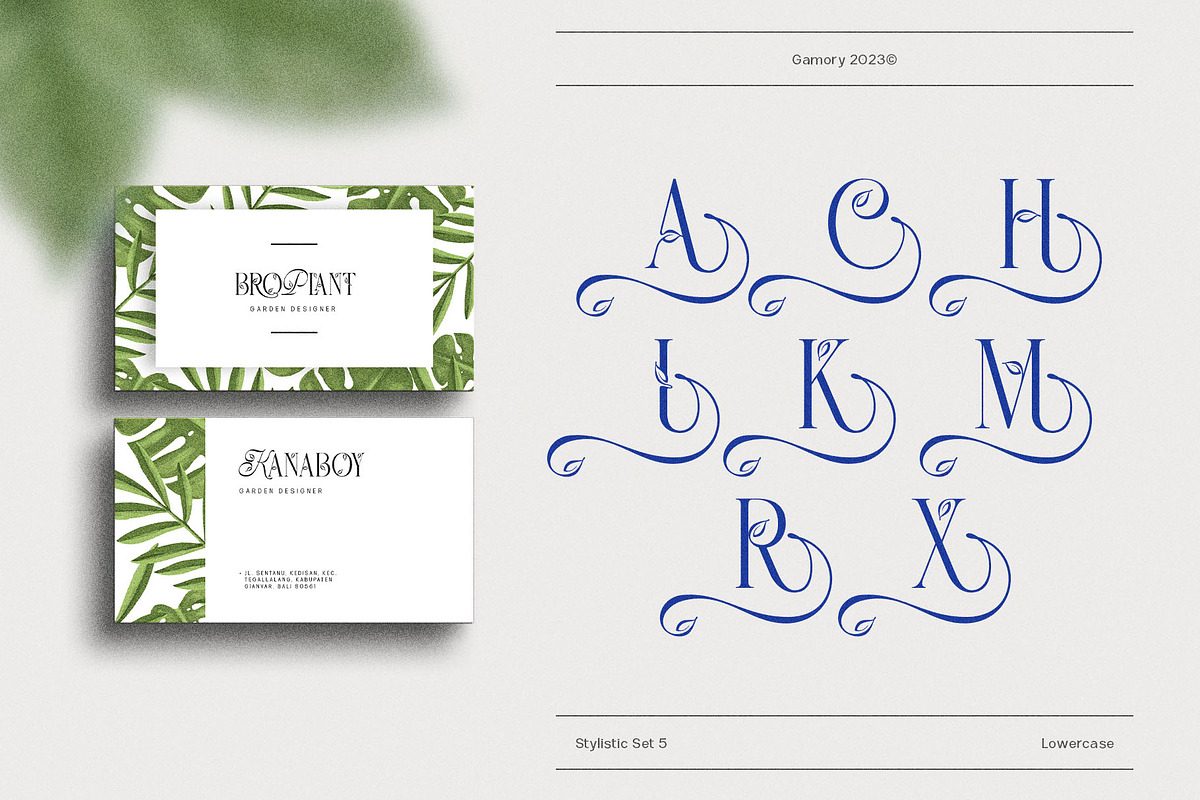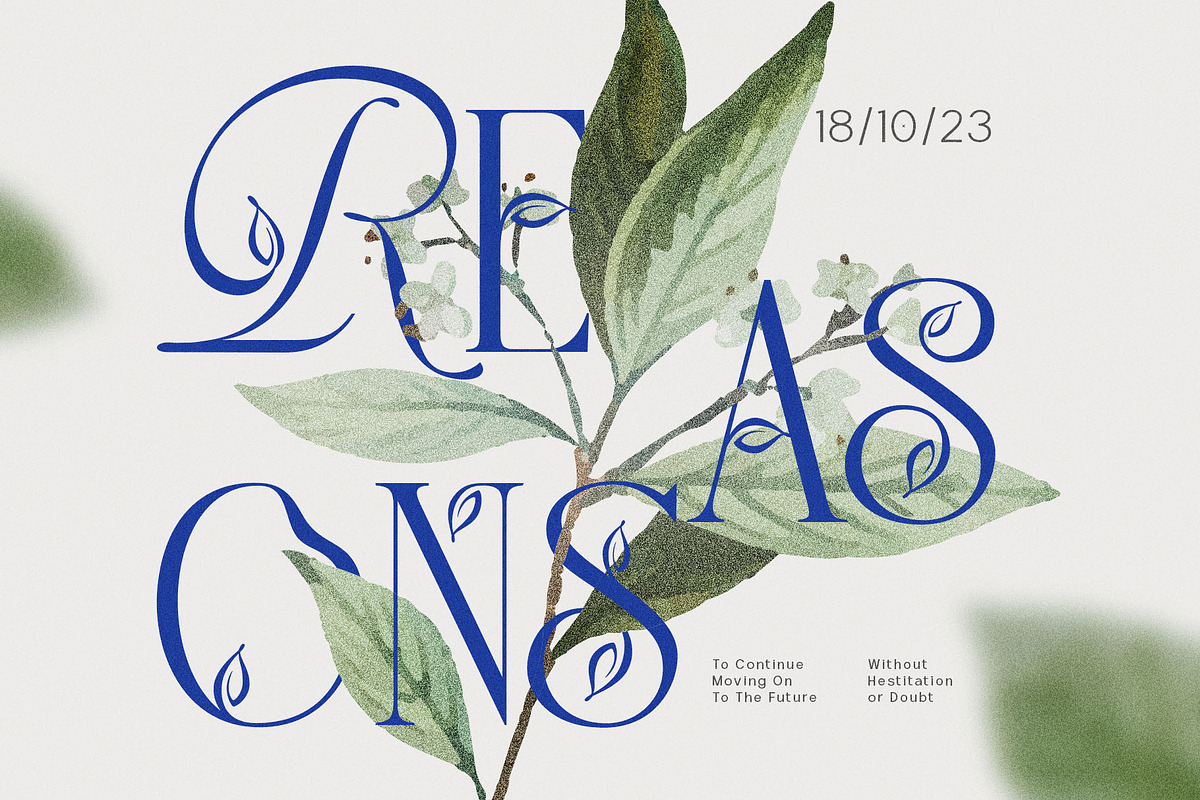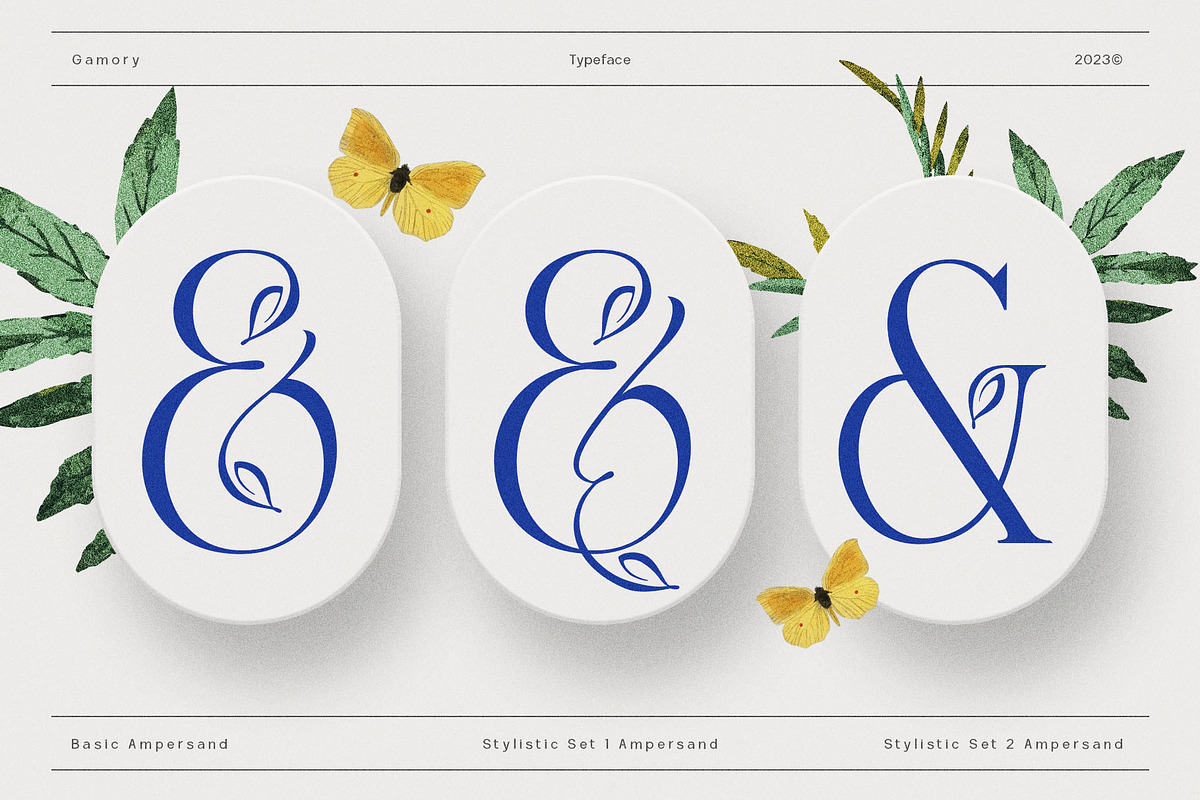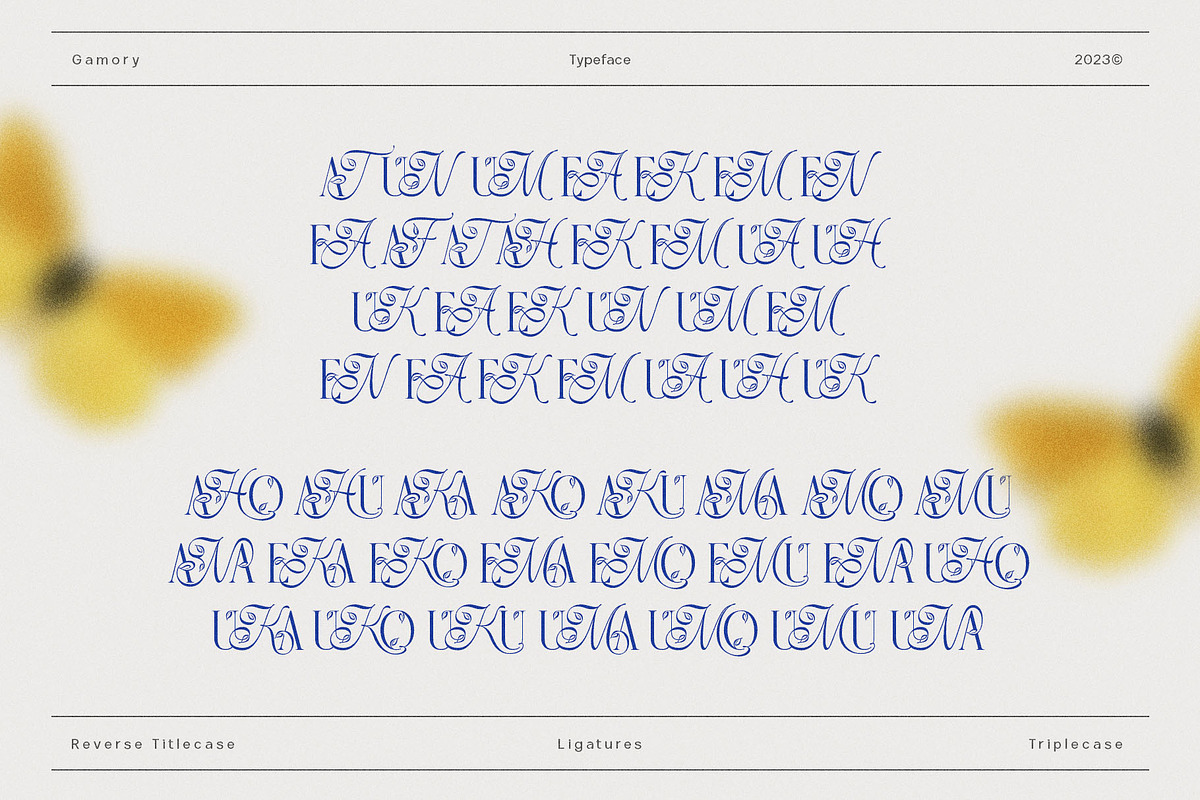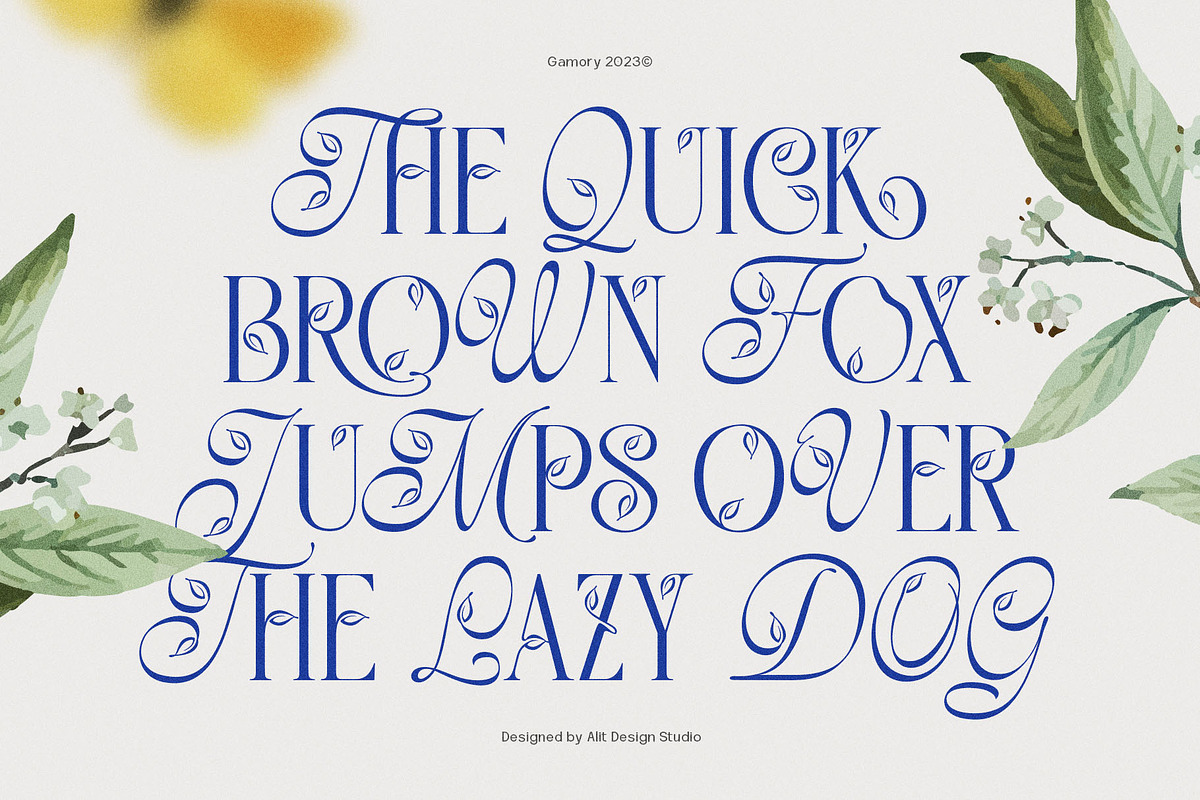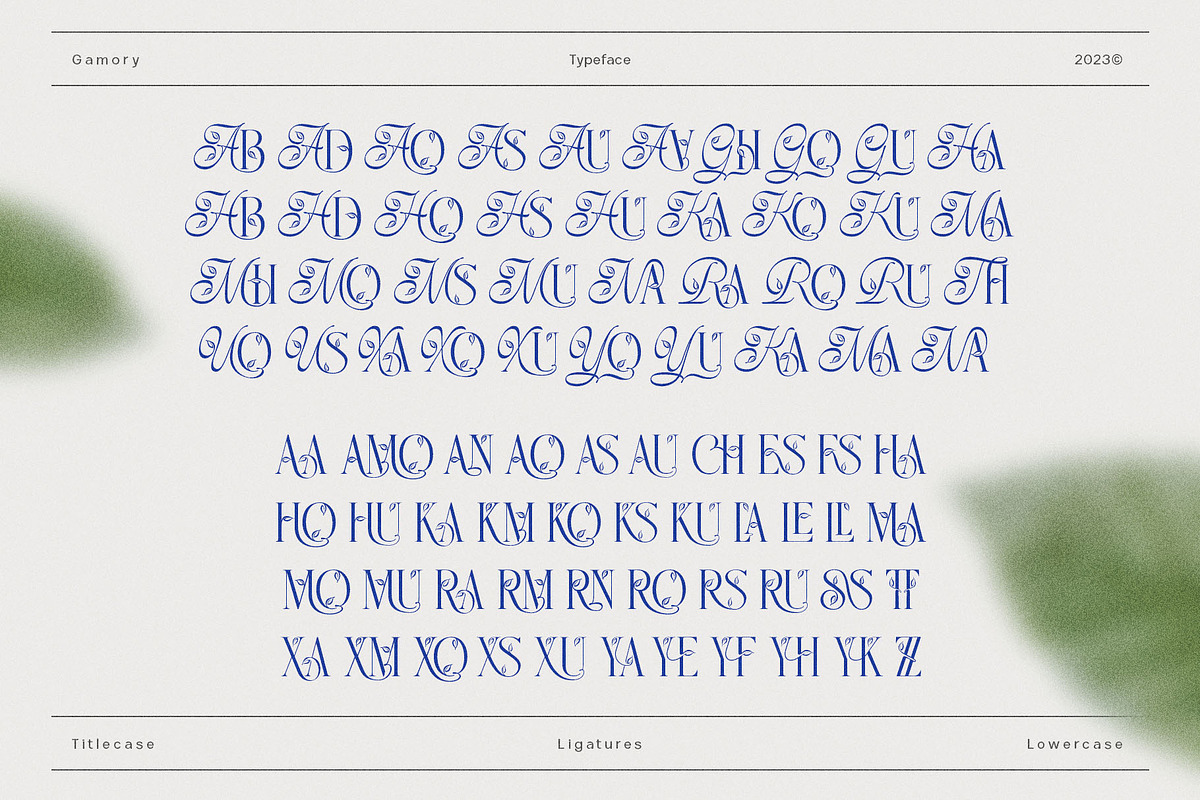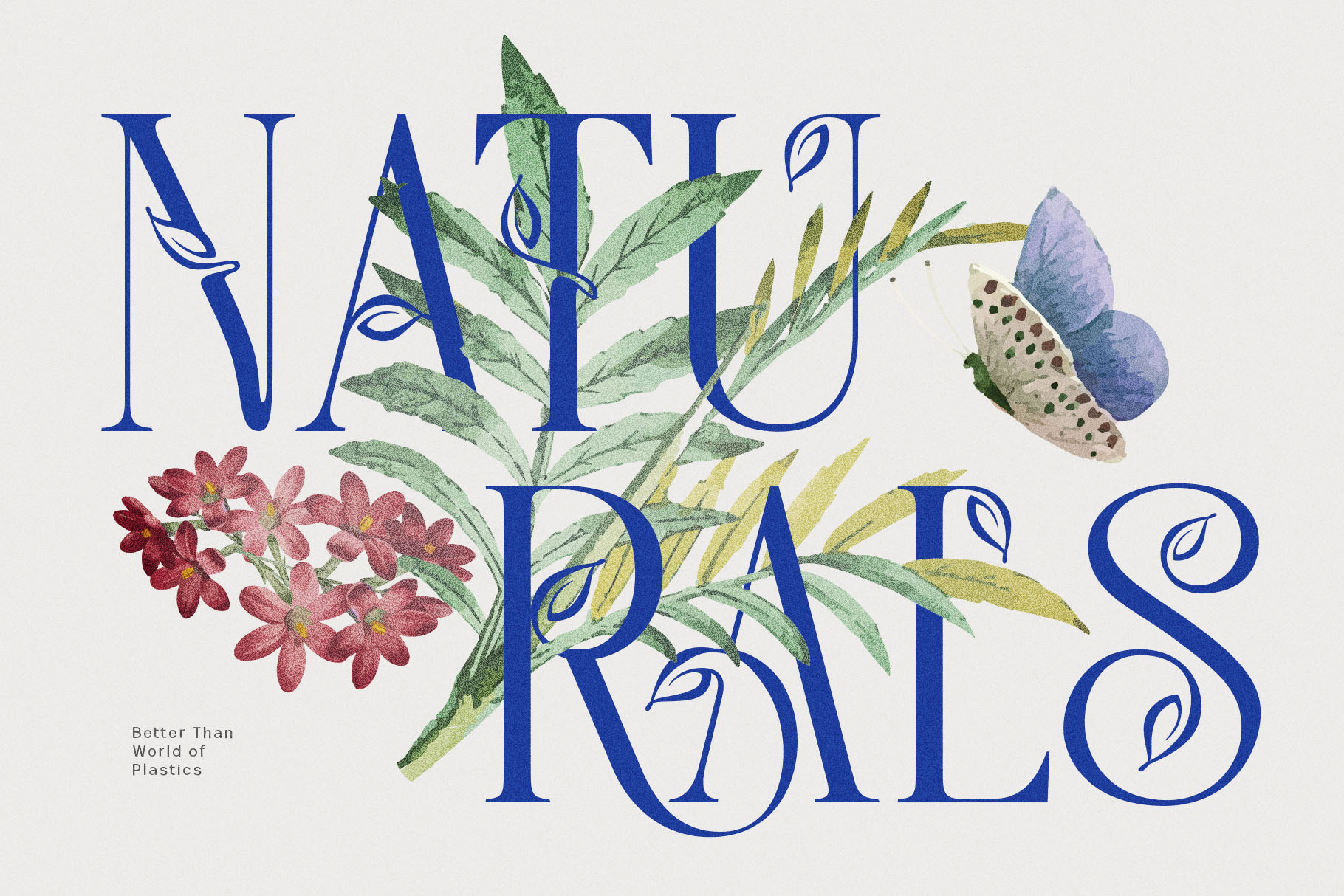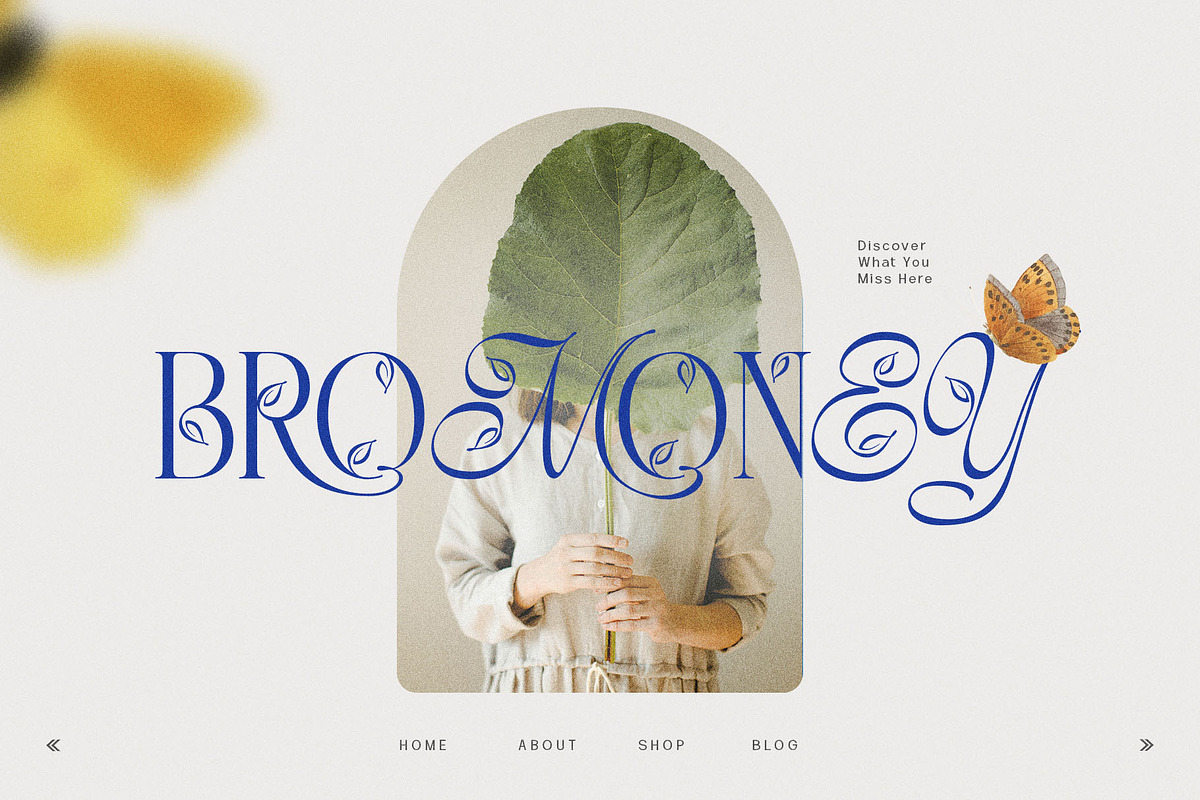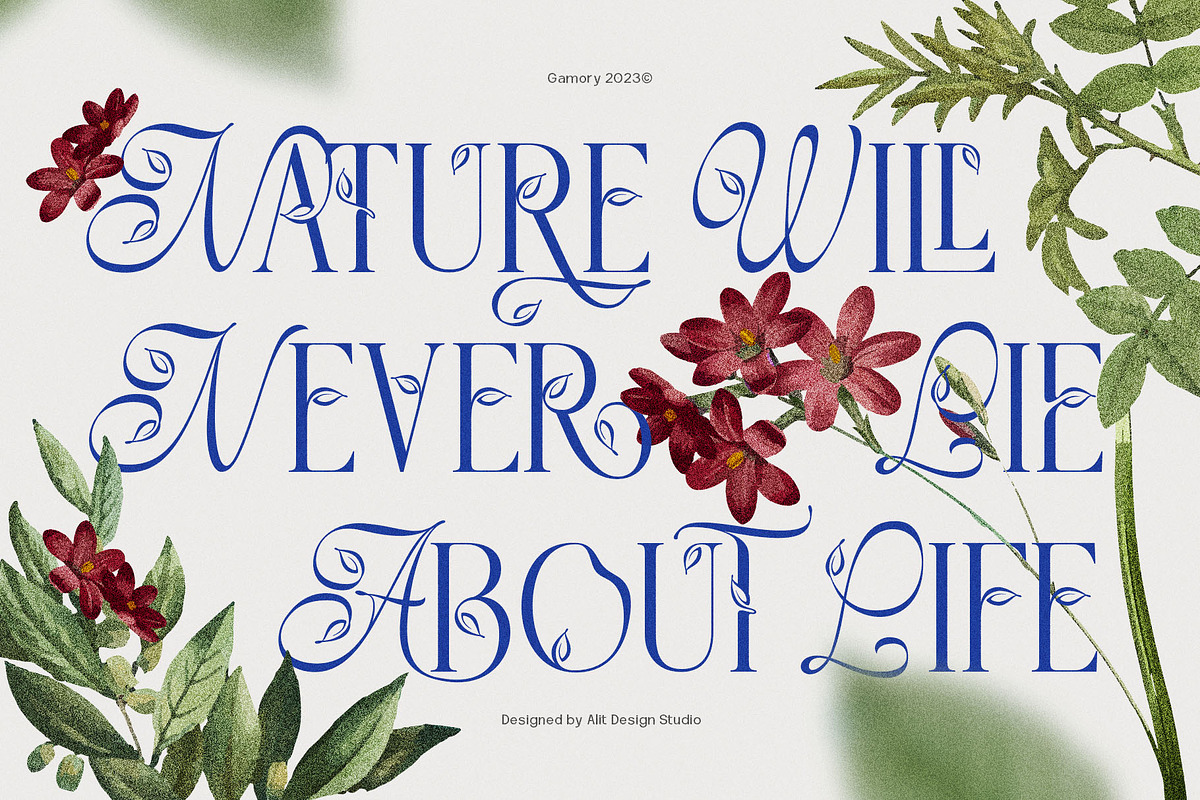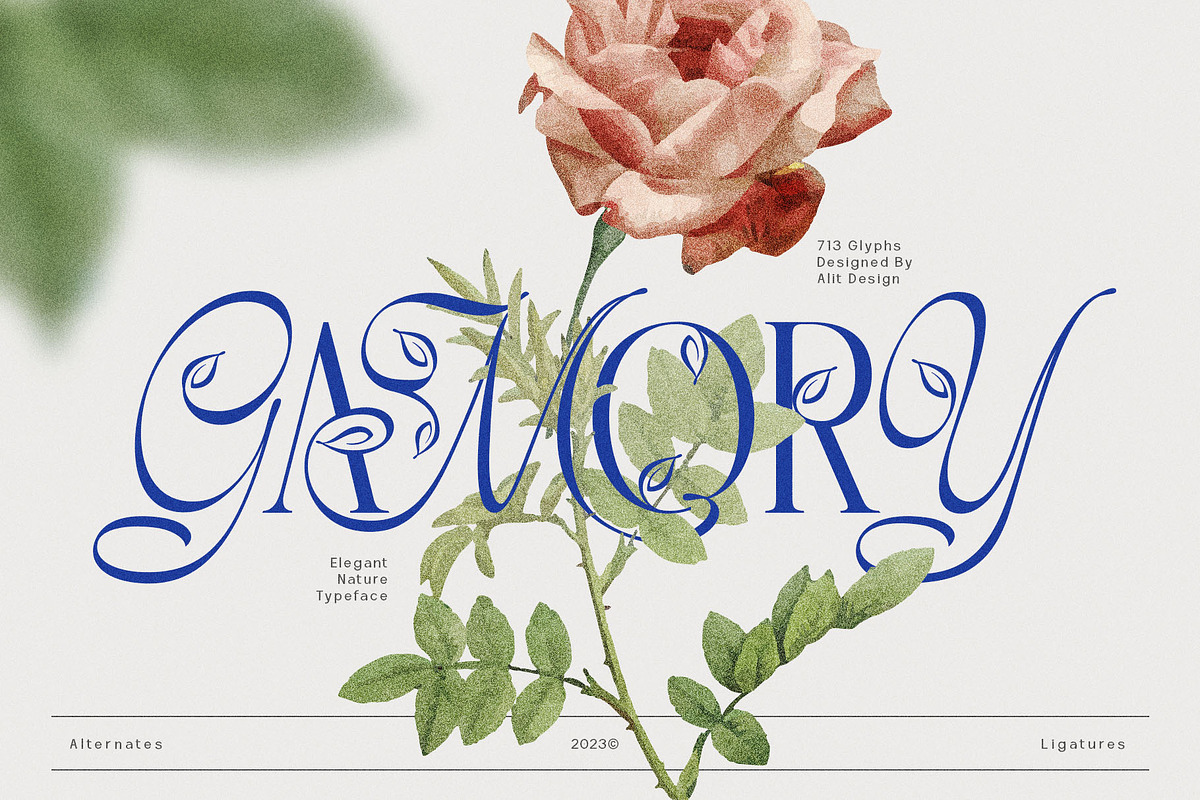
Gamory Typeface
🌿 Embrace the beauty of the natural world and the sophistication of elegant design with the Gamory Typeface. This exquisite font is a harmonious blend of nature-inspired decorative leaf illustrations and a versatile typeface that effortlessly combines two styles: Serif and Elegant Script. Whether you're working on a project for your wedding, branding, or any creative endeavor, Gamory brings the perfect balance of organic charm and refined aesthetics.
✒️ Serif Meets Script: Gamory Typeface seamlessly marries two distinct design styles. The serif characters exude a timeless and classical feel, while the elegant script elements add a touch of fluidity and grace. This dynamic fusion makes Gamory Typeface exceptionally versatile, suitable for various applications and themes.
Nature-Inspired Decorative Leaves: Each character within Gamory Typeface is adorned with delicate decorative leaf illustrations, reminiscent of lush foliage. These charming details infuse your text with a touch of nature, making it ideal for eco-friendly, organic, or natural-themed projects.
Dynamic Ligatures and Alternatives: Gamory Typeface includes an array of dynamic ligatures and alternative characters, enhancing the fluidity and elegance of your designs. With these options at your disposal, you can create text that appears hand-crafted and truly unique.
PUA Unicode and Multilingual Support: No matter where your project takes you, Gamory Typeface is fully equipped to meet your linguistic needs. It includes PUA (Private Use Area) Unicode, ensuring compatibility with various design software and providing support for multiple languages. This international versatility ensures your message reaches a global audience with style.
Swash and Swirl Delight: Elevate your design with Gamory's swash and swirl elements, perfect for adding an extra dash of sophistication to headlines, titles, and logos. These intricate details showcase the font's elegance, making it stand out in any context.
Versatility and Style: From wedding invitations to logos, product packaging to blog headers, Gamory Typeface brings unparalleled versatility and style to your creative projects. It's the perfect choice for designers, creatives, and individuals seeking a font that combines the beauty of the natural world with the grace of elegant design.
Embrace the harmony of nature and elegance with Gamory Typeface. Unleash your creativity and let your designs flourish with the timeless charm and artistic sophistication that only Gamory can provide. Experience the magic of Garmony Typeface today and elevate your projects to a new level of style and allure.